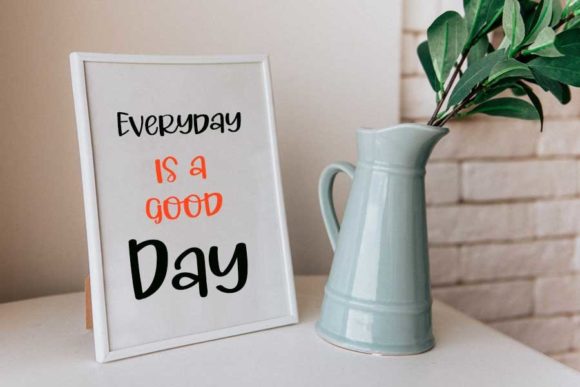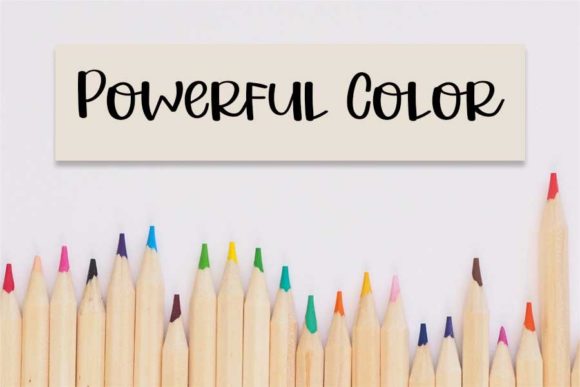
Beautiful Summer Font
db-ku.com - Script & Handwritten -- Beautiful Summer is a fun and relaxed handwritten font. Incredibly versatile, this font fits a wide pool of designs, elevating them to the highest levels. Add this font to your favorite creative ideas and notice how it makes them come alive!